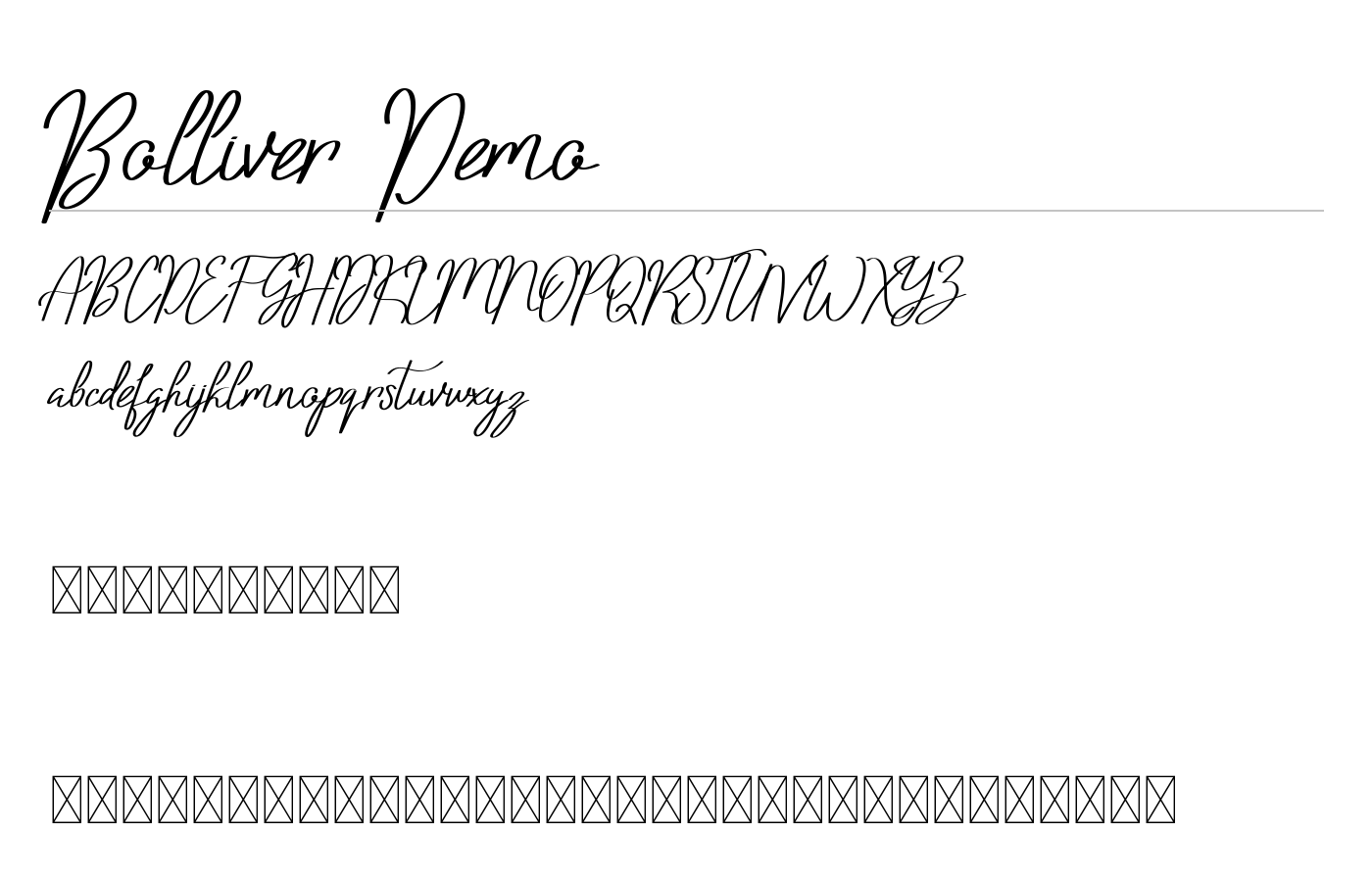
Bolliver Demo is an elegant script font that features slender, flowing letterforms with a handwritten feel. Its fine lines and delicate curves give it a graceful, sophisticated personality, making it ideal for invitations, branding, and any design that seeks a refined and personal touch. This font works beautifully in headlines or logos where a stylish, artistic impression is desired.
Bolliver Demo Font
About Bolliver Demo Font
| Font family | Bolliver Demo Font |
| Designer | Fahri Firdaus & Sarah Suci Pauziah |